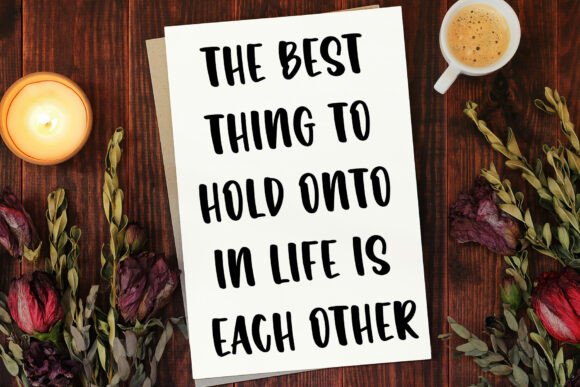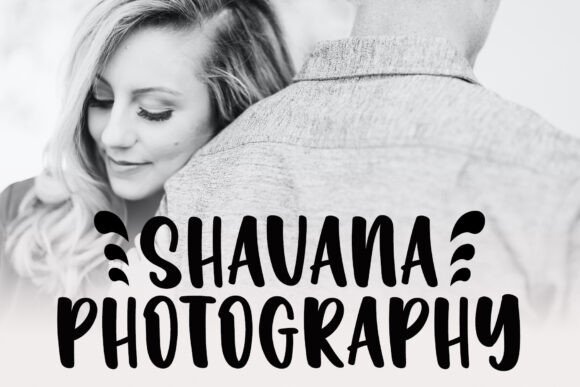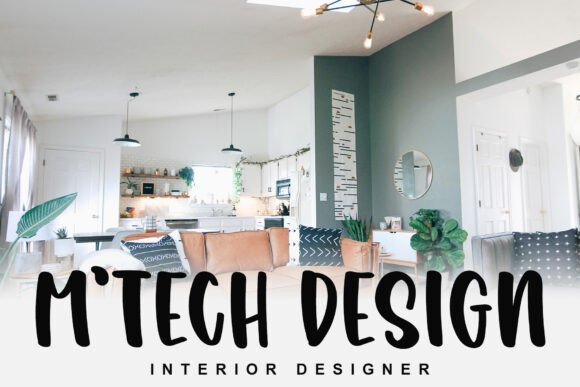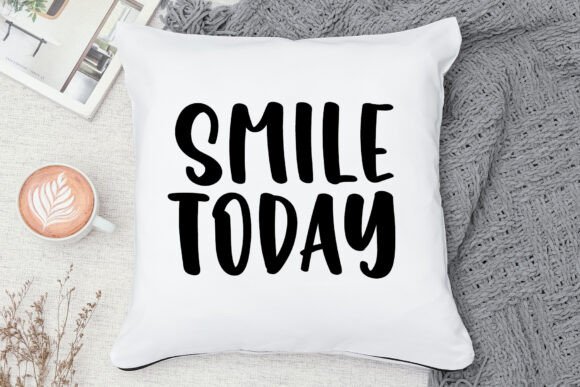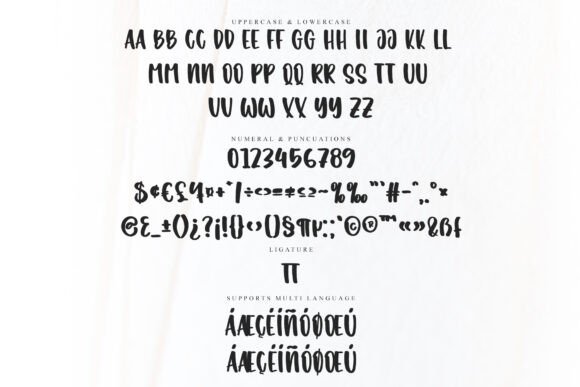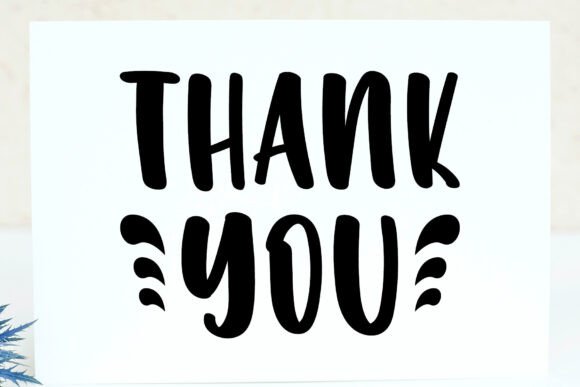
Introduction to Planner Farmhouse Font Font
Fonts play a crucial role in design, and the Planner Farmhouse Font font is a typeface that brings both character and versatility to any project. Whether you’re working on a branding project, a website, or a print design, the Planner Farmhouse Font font offers a unique style that can elevate your work.
Planner Farmhouse is a stylish and modern handwritten, suitable for a wide spectrum of applications.
From greeting cards to headlines, branding and packaging, this font will guarantee a happiness touch to each of your creations This font is PUA encoded which means you can access all of the amazing glyphs and ligatures with ease.
Key Features of Planner Farmhouse Font Font
Why Choose Planner Farmhouse Font Font?
The Planner Farmhouse Font font is more than just a typeface – it’s a design tool that helps you communicate your message with style and clarity. Its unique character set and versatile design make it suitable for a wide range of applications, from elegant invitations to bold headlines.
With its carefully crafted letterforms and balanced proportions, the Planner Farmhouse Font font ensures readability and visual appeal across all mediums.
What makes Planner Farmhouse Font font special?
The Planner Farmhouse Font font stands out with its unique design, exceptional readability, and versatility across various design applications.